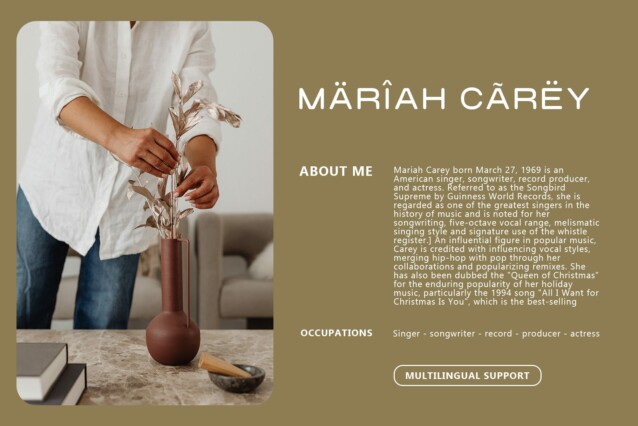
Rolide Rounded Font
Rolide Rounded Font: Modernity in Subtlety. Low-Contrast Sophistication Rolide Rounded features a low-contrast sans serif design, offering a subtle yet refined appearance suitable for various design contexts.
Contemporary Vibes Embodying modernity, This font exudes a contemporary feel, making it an ideal choice for projects seeking a sleek and up-to-date aesthetic.